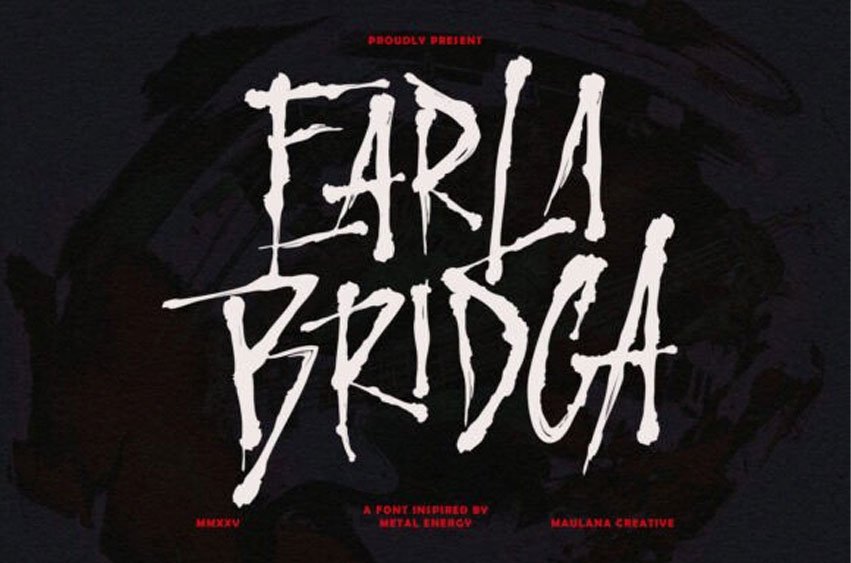
Earla Bridga Font is a raw, aggressive, and highly kinetic brush display font that embodies the wild, unpredictable energy of metal music and hardcore punk art.
Inspired by raw “Metal Energy,” this typeface features visceral, spiky strokes and an intentionally messy, hand-painted texture that looks like it was hastily scrawled with a thick, jagged brush. The irregular height and baseline further amplify its loud, rebellious, and unapologetic character.
This font is a powerhouse for projects that require a distressed, visceral, and genuinely intense aesthetic. It is specifically designed for album covers, concert posters, edgy streetwear branding, gaming titles, graphic novel lettering, and extreme sports apparel.
Earla Bridga delivers an immediate feeling of unfiltered chaos and raw power, making it an essential tool for any designer looking to make a bold, impactful, and unforgettable statement in the realms of music and underground culture.